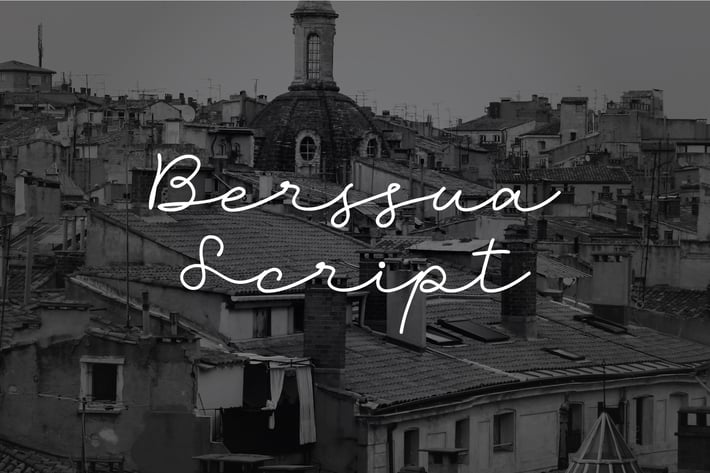
Berssua Script and Handwritten Font
Berssua Script - Script and Handwritten Font
Berssua Script is a script and handwritten font created with vintage style in mind and to fit to use as branding project designs. It features an vintage & old style and will add unique feel to your upcoming projects. Get inspired by its unique feel and use it to create designs, posters, brand logo, product packaging and many more!